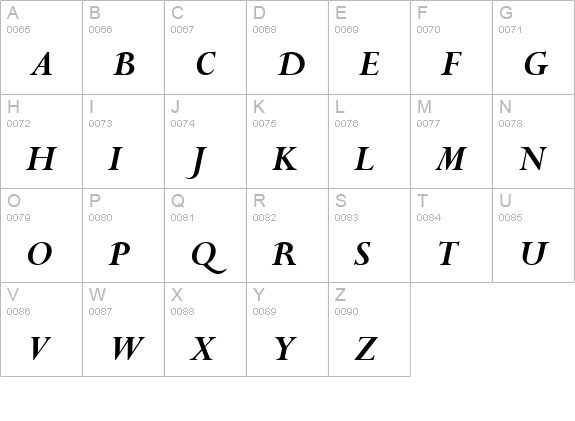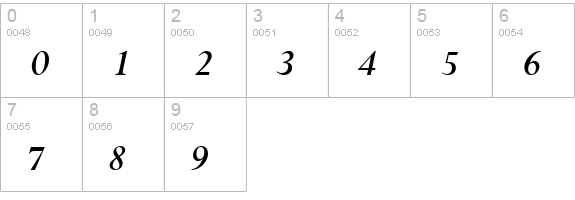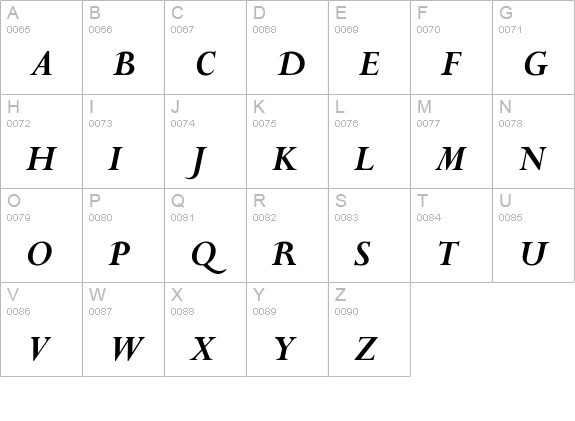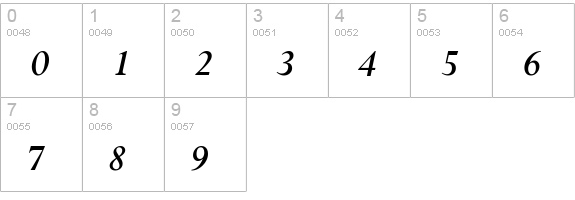
Compleat SSi Bold Italic is a strong, high-contrast, italic variant in the Compleat typeface family \xE2\x80\x94 well suited to headlines, attention-grabbing titles, and strong calls-to-action.
Compleat SSi Bold Italic is a bold and dynamic font that exudes a sense of modernity and sophistication. Its sleek curves and sharp angles make it a versatile choice for a wide range of design projects, from branding to editorial layouts. The bold italic style adds a touch of drama and flair, making text stand out on the page. This font is perfect for creating eye-catching headlines, signage, and promotional materials that demand attention. Whether you're designing a poster, logo, or website, Compleat SSi Bold Italic will help your message shine. Best of all, Compleat SSi Bold Italic is available for free download at FontsMarket.com. This means you can access this stylish and professional font without breaking the bank. Don't miss out on the opportunity to elevate your designs with Compleat SSi Bold Italic!